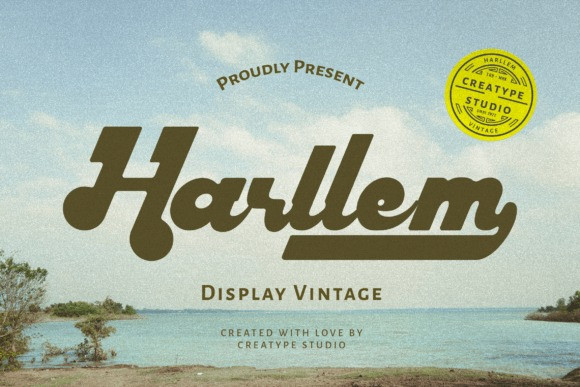
Harllem Font
Harllem Retro Font , a typeface with a 90’s vibe that gives your project a classic, vintage, and fun vibe. Get the audience’s attention thru this typeface!
Harllem is perfect for branding projects, logos, wedding designs, social media posts, advertisements, product packaging, product designs, label, photography, watermark, invitation, stationery, and any projects that need cool typography. This font is PUA encoded, which means you can access all of the glyphs and swashes with ease!